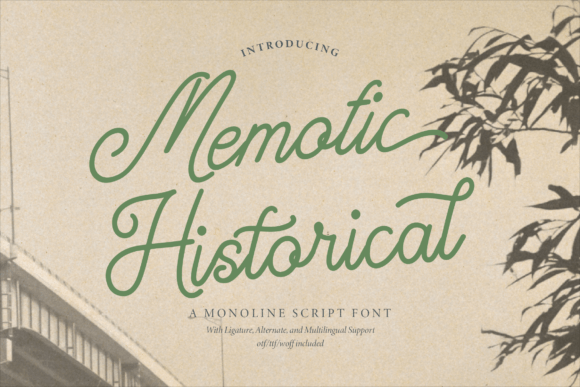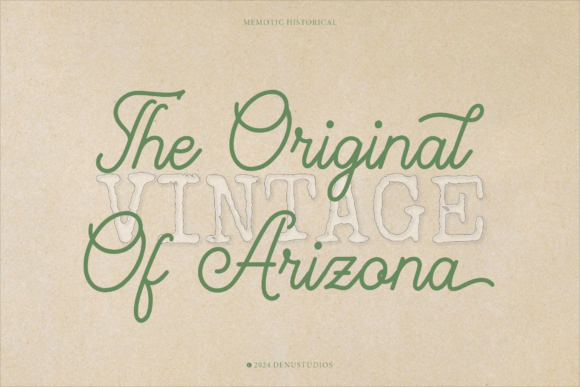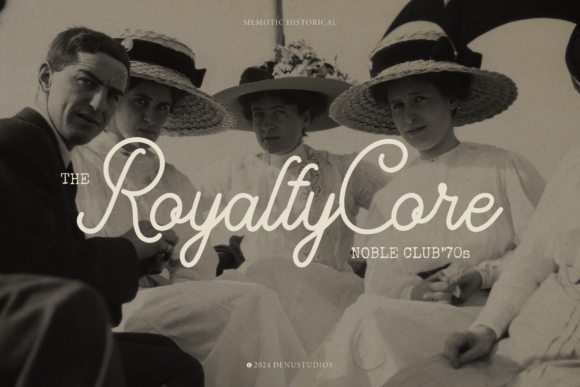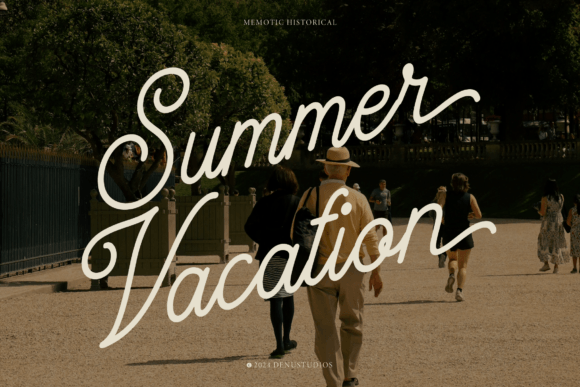
Memotic Historical Font
About the Memotic Historical Font
The wait is over! The incredible Memotic Historical Font is now available for your design toolkit. Memotic Historical is a smooth, elegant monoline script font that gives a classic, vintage feel. With its thin, single-line strokes, it’s perfect for creating stylish, timeless designs like logos, invitations, and quotes. Its flowing letters add a touch of sophistication, making it great for both modern and retro-inspired projects.
Memotic Historical excels in applications requiring understated elegance, such as logos, wedding invitations, or short-form quotes on marketing materials. Its delicate nature makes it unsuitable for body text or UI elements where readability is paramount. Avoid using it for large blocks of text; its thin strokes can strain the eye.
The font’s personality is sophisticated and timeless, lending itself to brands aiming for a classic, refined aesthetic. It pairs well with clean sans-serif fonts like Montserrat for a balanced contrast, or a geometric sans-serif like Futura for a more modern feel. Consider pairing it with a subtle serif like Garamond for a more traditional approach.
For a touch of playful contrast, a light, handwritten script could be used sparingly; however, always prioritize readability in such pairings. Avoid pairing it with bold, heavy fonts as this will clash with its delicate strokes.
Memotic Historical Font Example